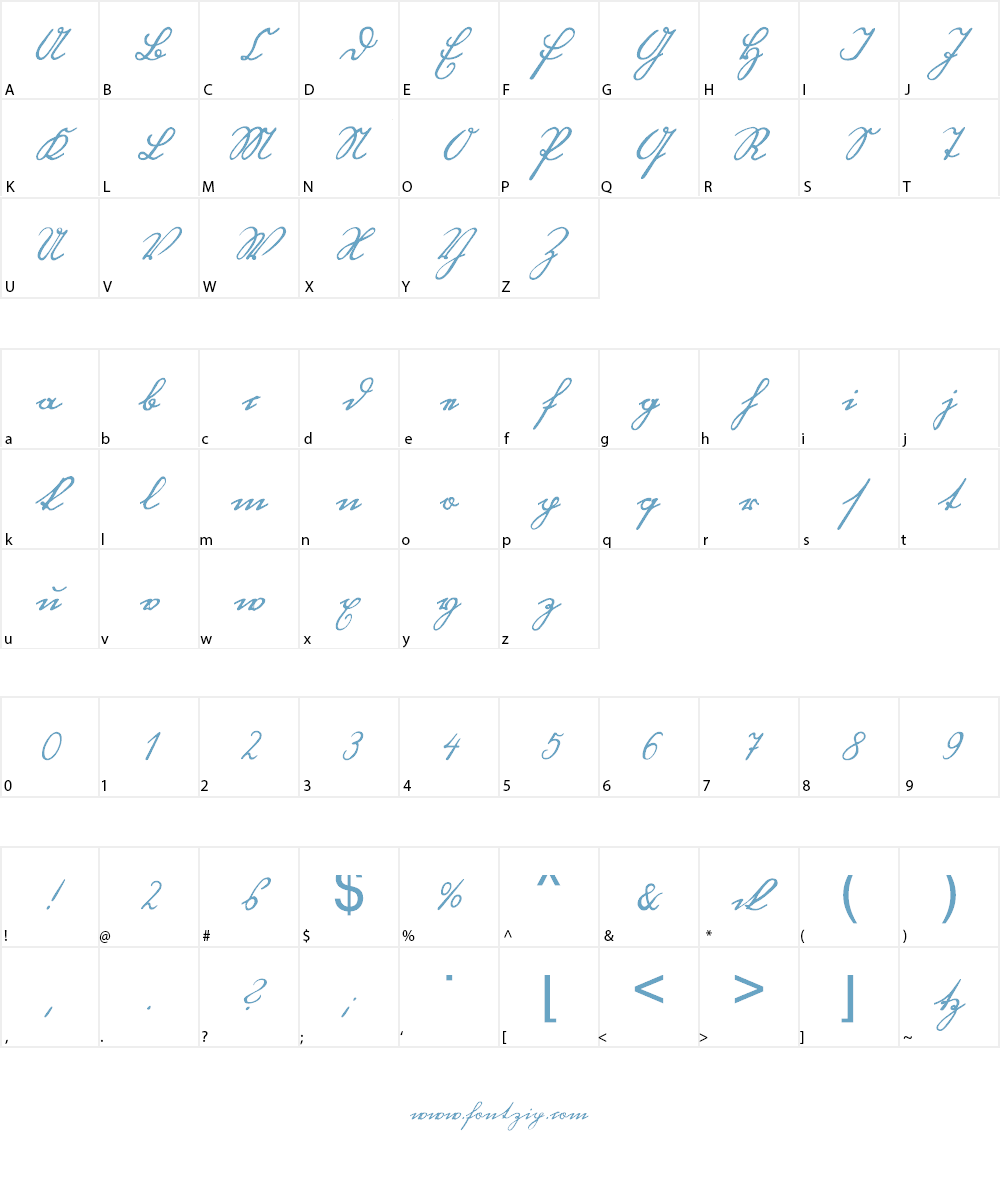
A classic Germanic blackletter hand. Used when writing Germanic languages with Romance ones---in typesetting, you'd use Fraktur for German or English and Antiqua for French or Italian; in handwriting, you'd use Kurrentschrift and Ausgangsschrift respectively. This is the older, pre-Suetterlin variant; as such, it is written on an angle and with a pen, as opposed to vertically with a biro.
The "round" or terminal lowercase "s" is on the # key. Long "s" is used otherwise and is on the lowercase "s" key.